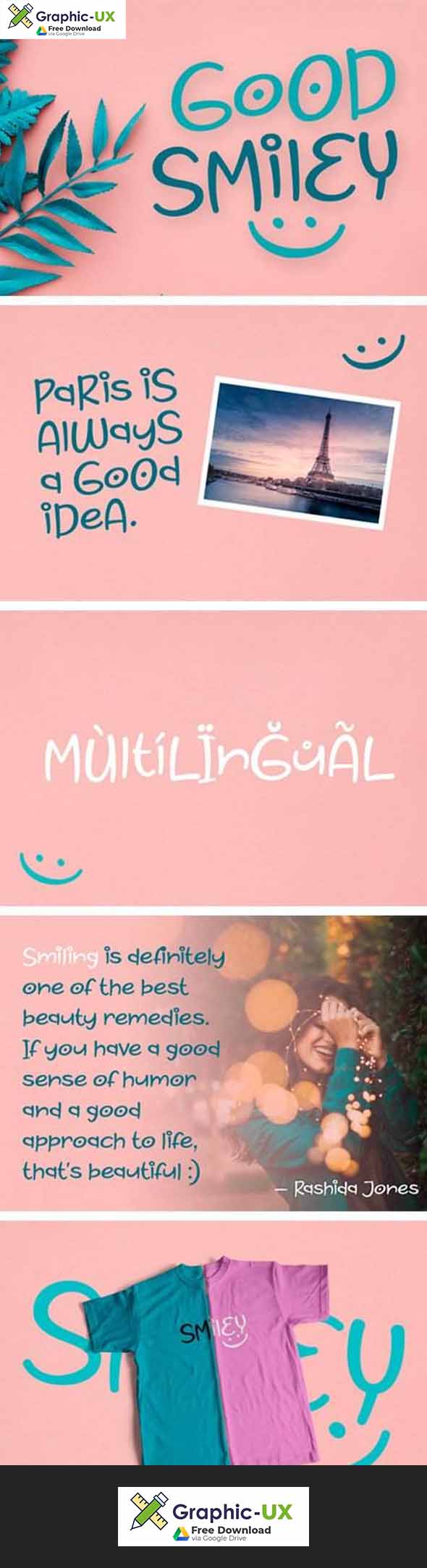
Good Smiley Font For Free Download
Good Smiley is joyful and dynamic display font featuring cute dots. It will effortlessly take any design idea to the next level.